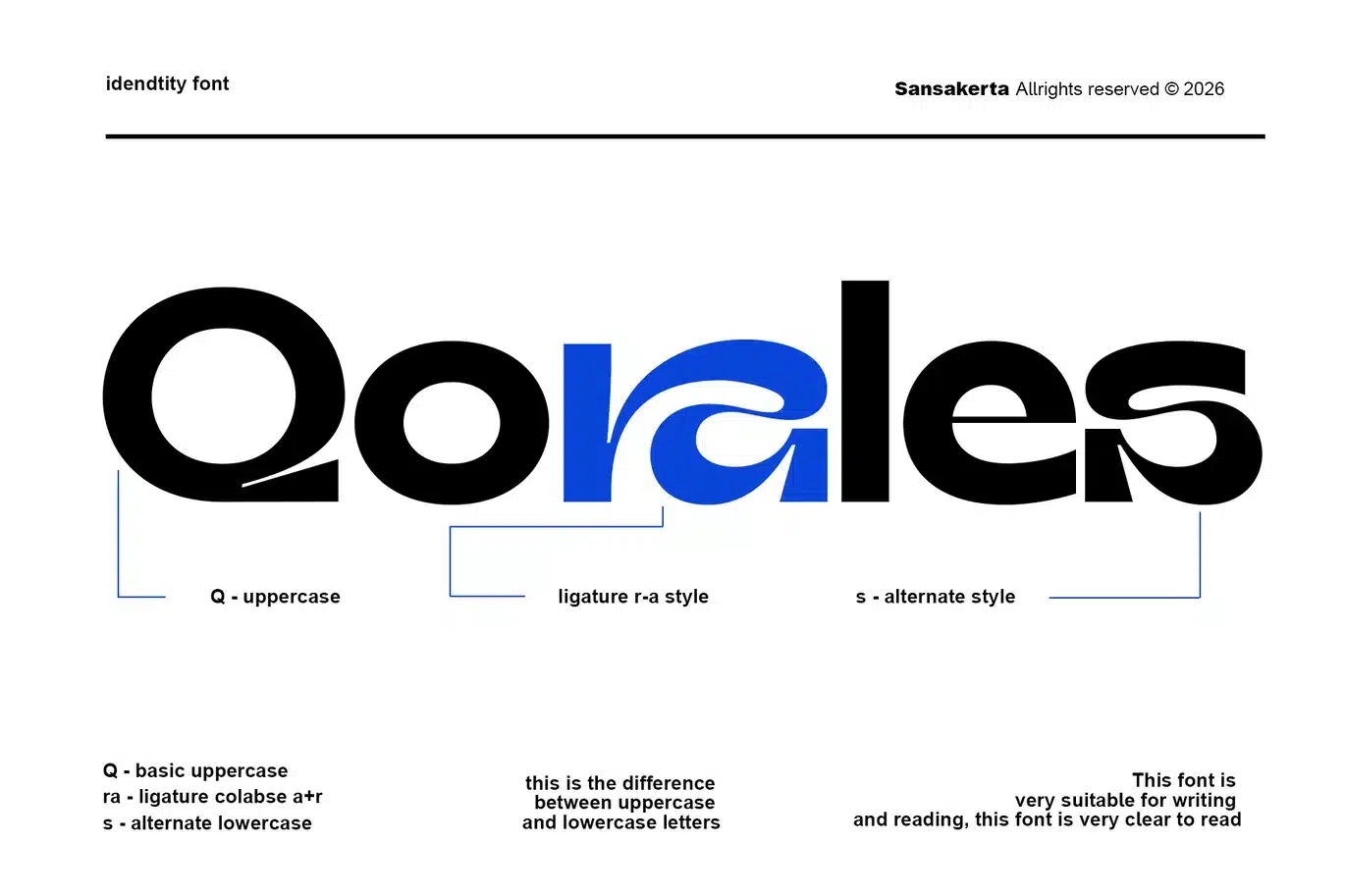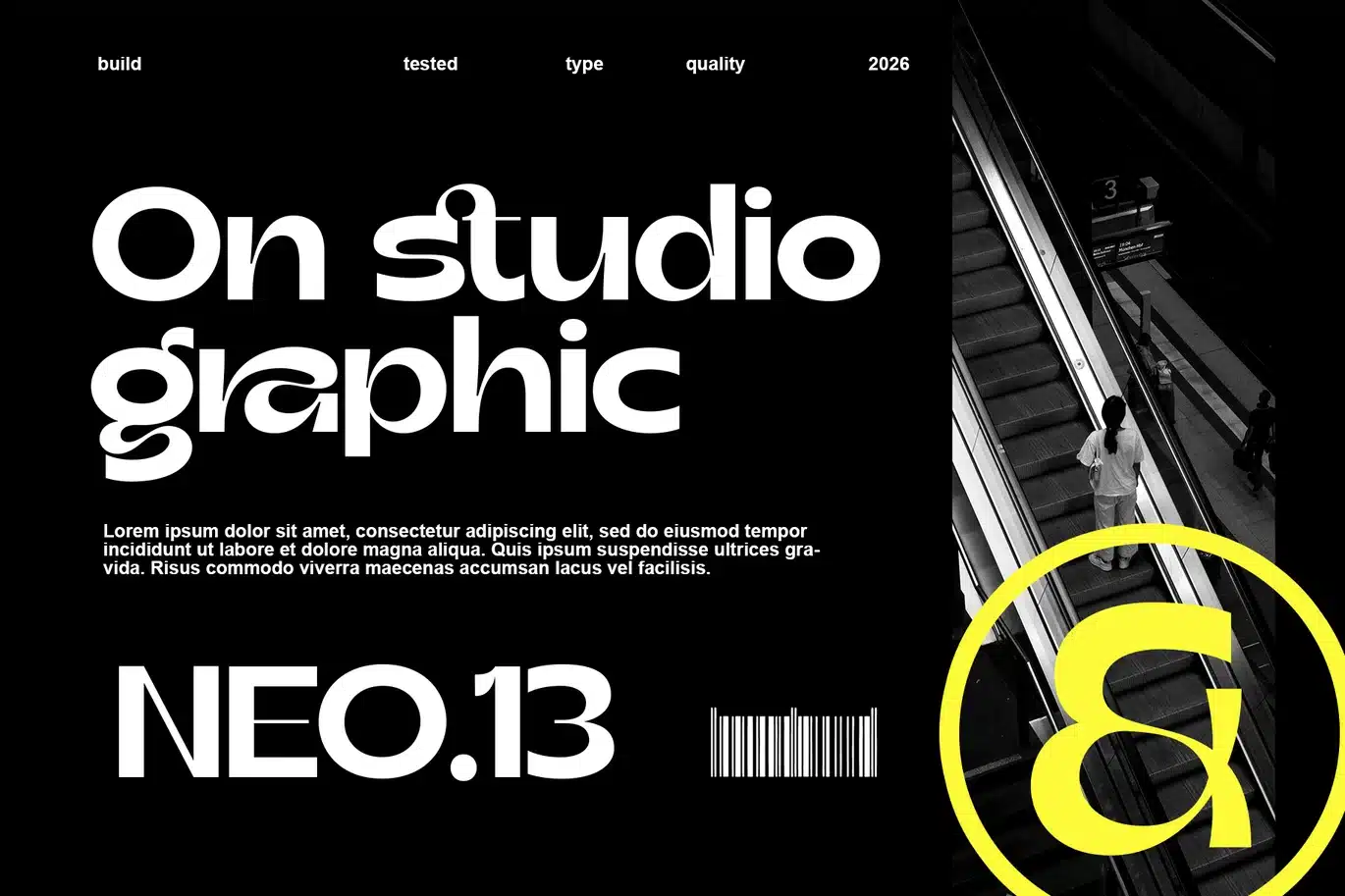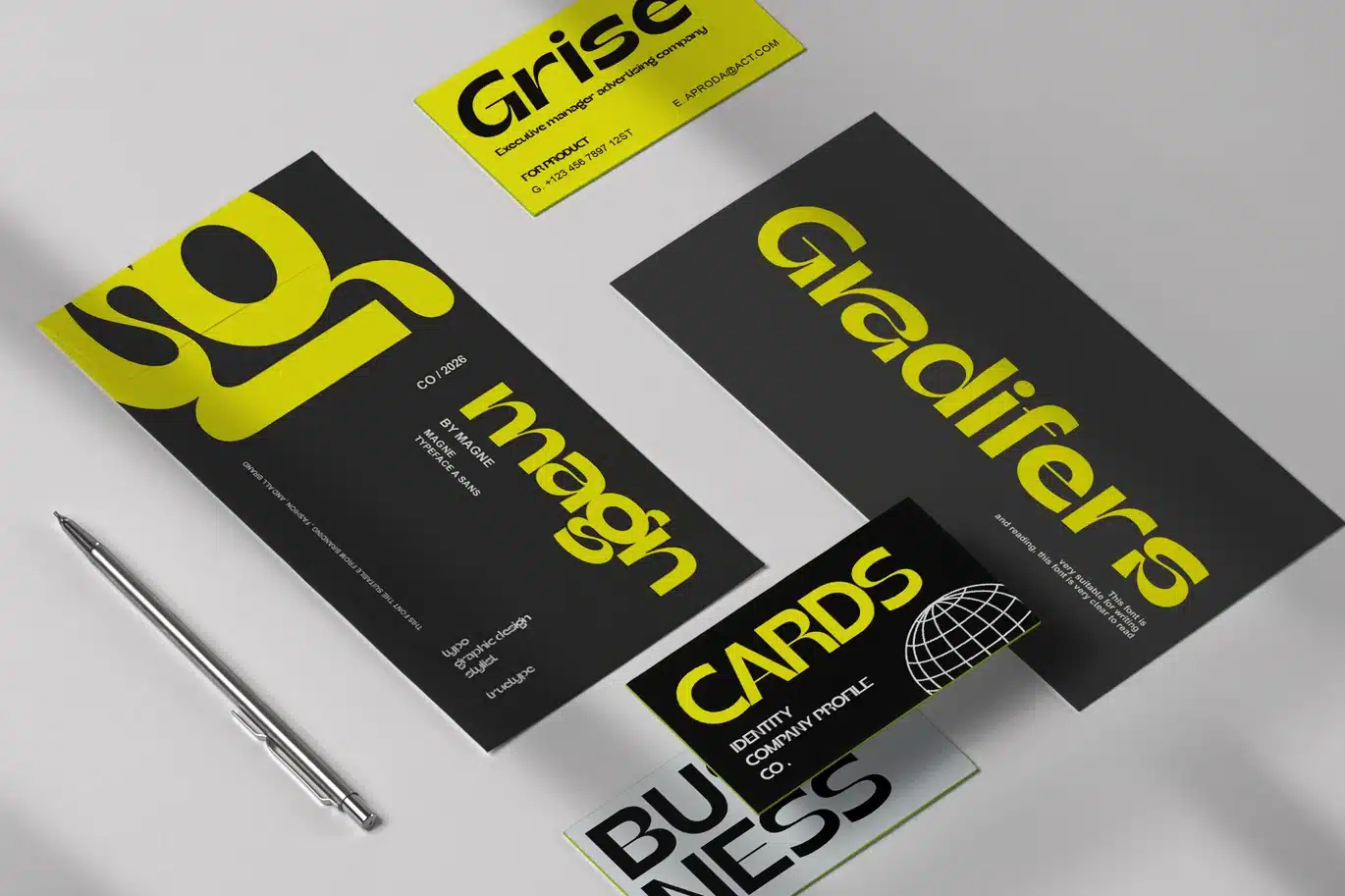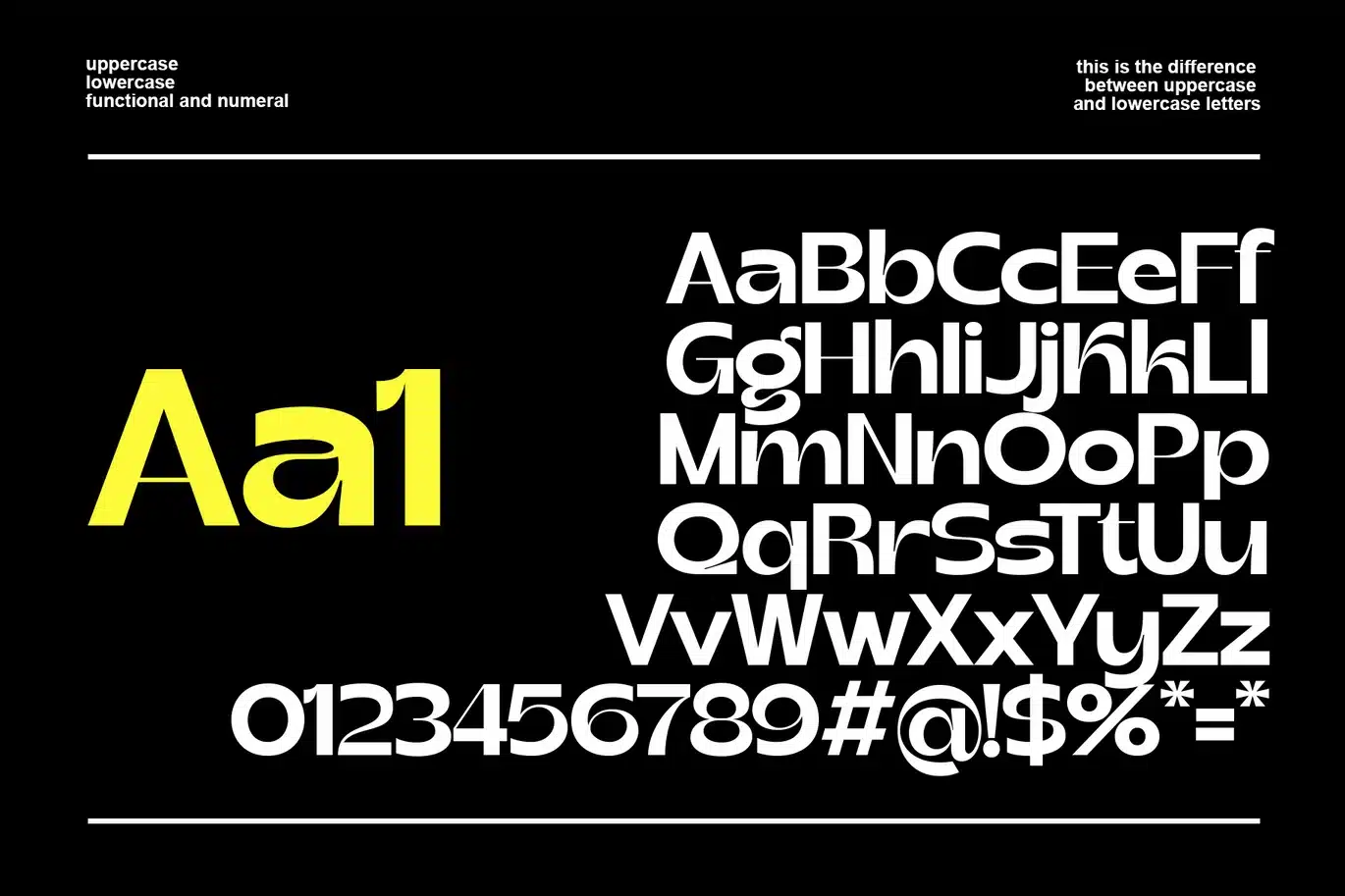
Sirage Font
Sirage is a modern display sans serif font with a clean, bold, and experimental look. Designed with unique alternate characters and stylish ligatures, this typeface delivers a strong visual identity while maintaining excellent readability.
Its smooth curves and contemporary shapes make it perfect for creative branding, editorial layouts, posters, social media graphics, packaging, website headers, modern typography projects, and visual identities.
Sansakerta combines minimalist aesthetics with expressive character details, making it suitable for designers who want a modern and distinctive typographic style.